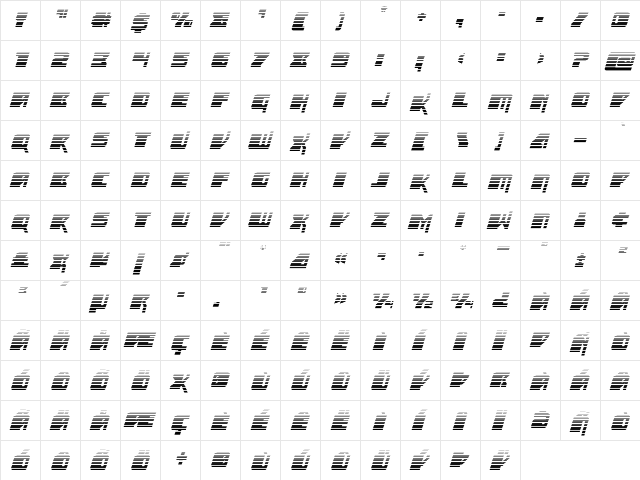
Space Runner Gradient Italic Regular
Design Context for Space Runner Gradient Italic Typeface
Space Runner Gradient Italic is a composed and adaptable typeface that performs quietly and consistently across a wide range of design contexts. The dynamic lean of this cut emphasises speed and emphasis in any layout.
Pro Tip: Use Space Runner Gradient Italic for emphasis, pull quotes, and subheadings where its slanted energy can add rhythm to the layout.